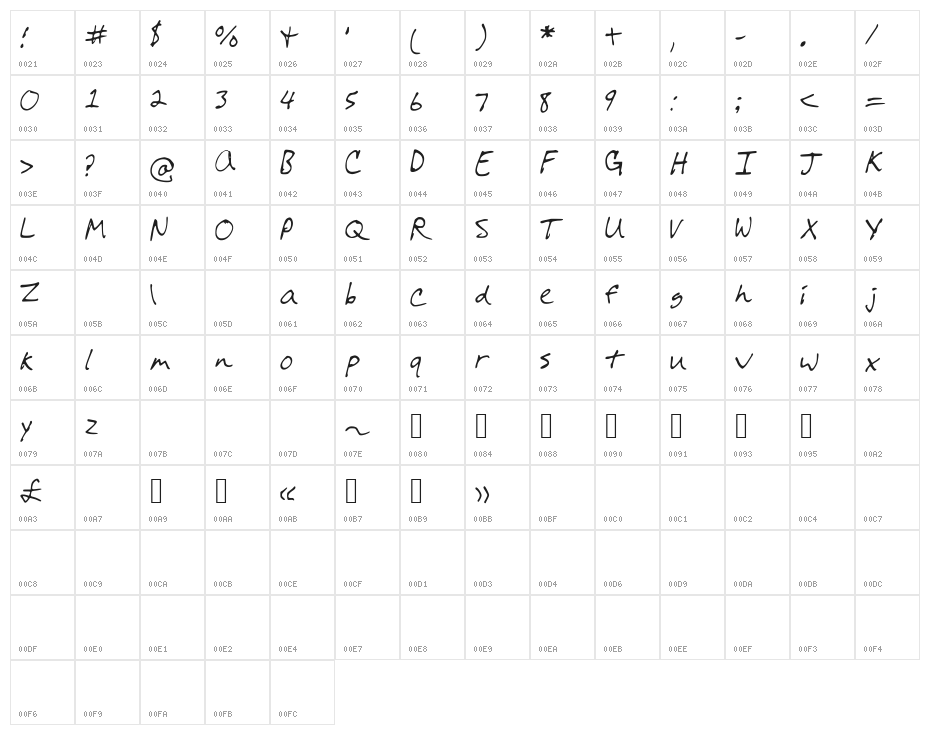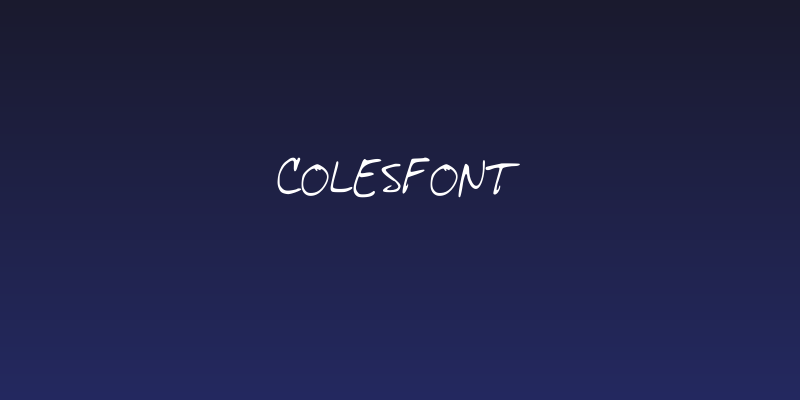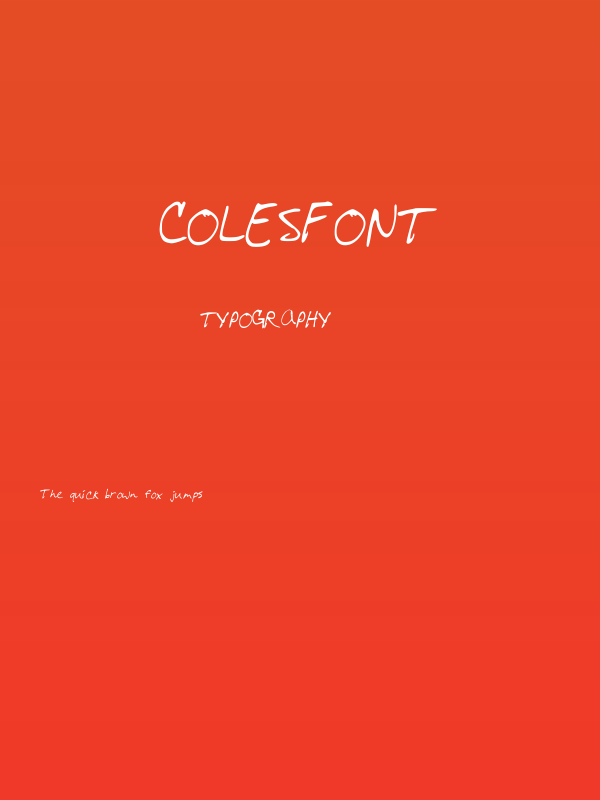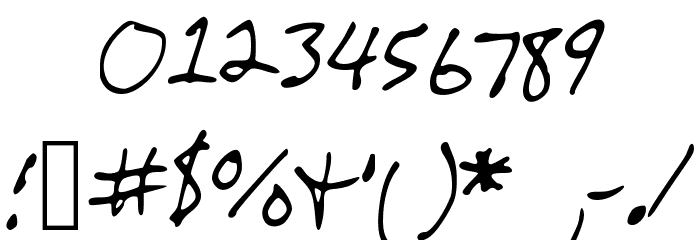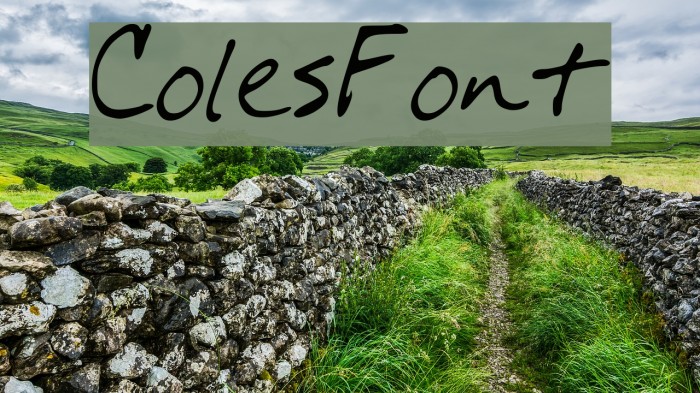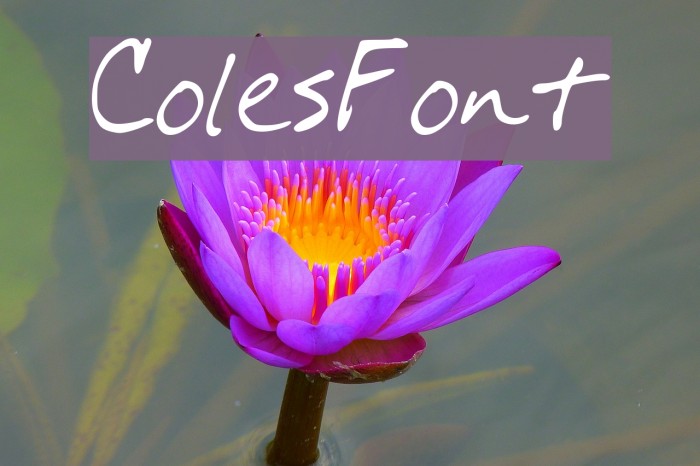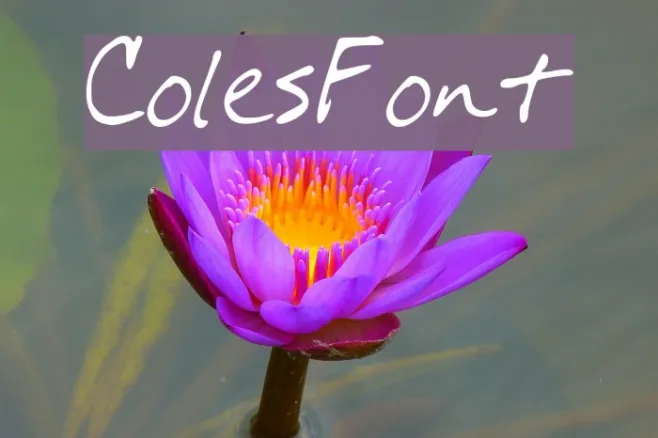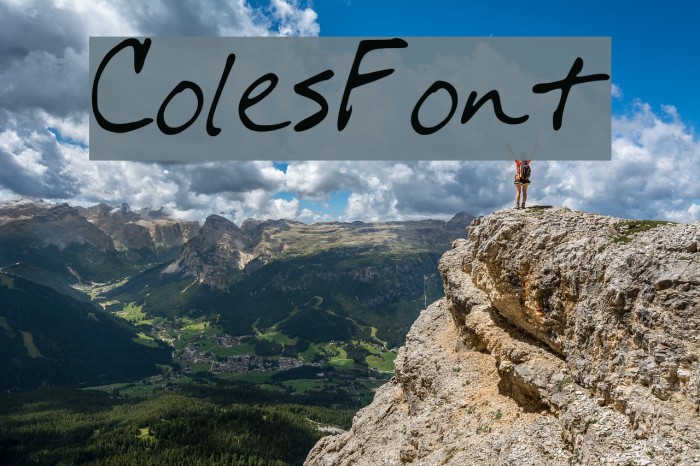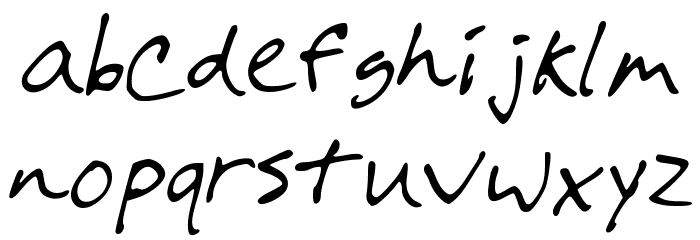
ColesFont Font
ColesFont Description
This font features a casual, handwritten style with a playful and informal appearance. The letters are slightly slanted, giving a dynamic and lively feel. The strokes are uneven, mimicking the natural flow of handwriting, which adds a personal touch. The uppercase and lowercase letters are well-balanced, maintaining readability while offering a unique character. The numerals and special characters follow the same handwritten aesthetic, ensuring consistency across all glyphs. This font is perfect for projects that require a personal, approachable, and friendly tone.